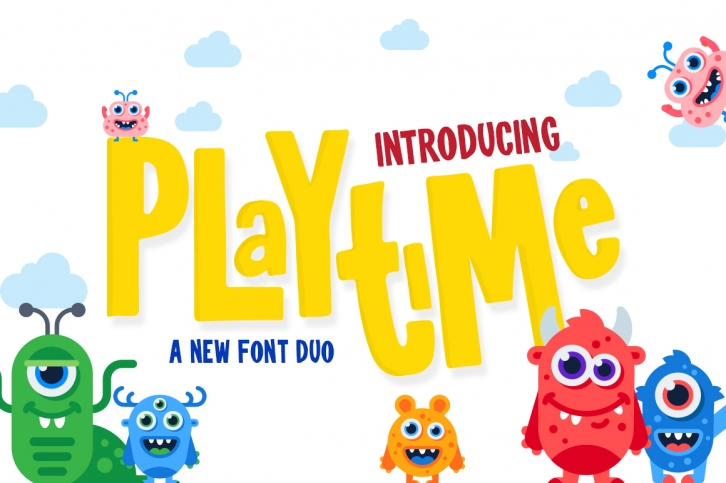
Playtime is a gorgeous font that was realeased on March 23, 2019. The font can be used in many style contexts and design environments. Perfect for invitations, magazines, websites, logos, and more! It was designed by Salt and Pepper Designs and the file size is 14.41 MB. Thanks for checking out this font!